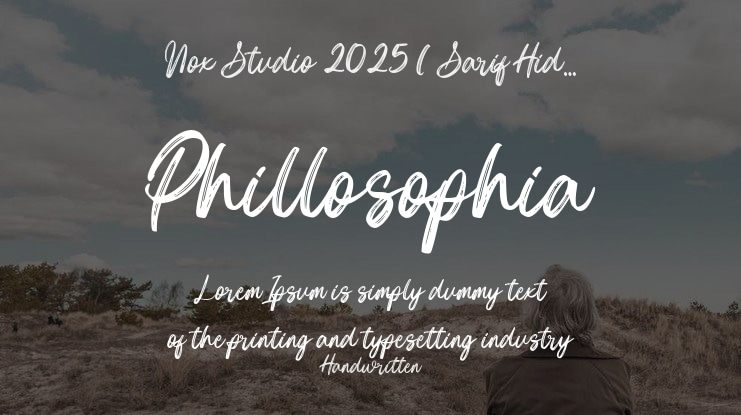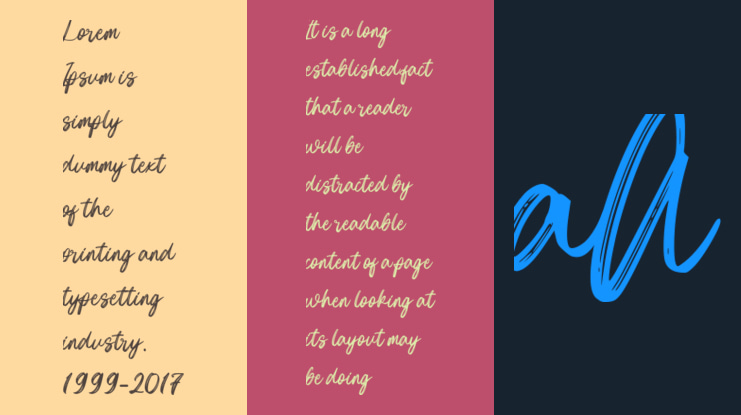
Phillosophia Font
Nox Studio 2025 ( Sarif Hidayat)
Immerse yourself in the elegant complexity of Phillosophia font. Boasting a captivating script style, it evokes a visually poetic charm that effortlessly enhances your artistic flair. Phillosophia font seamlessly integrates across a wide array of design concepts, adding a touch of sophisticated finesse to your design narratives. Further enriched with a lavish array of ligatures and alternates, it extends the flexibility of your designs, opening up infinite pathways towards visual articulation. Surrender to the irresistible allure of Phillosophia font and elevate your design instincts to unparalleled levels of brilliance.